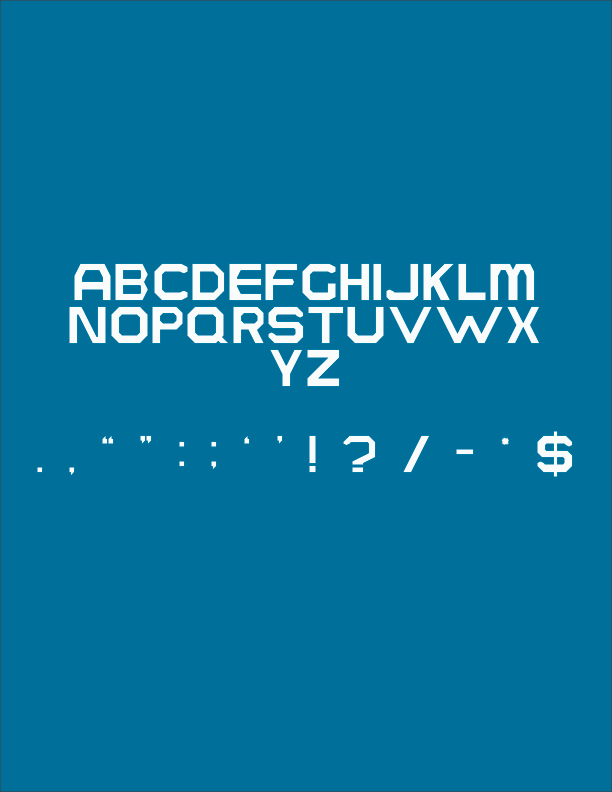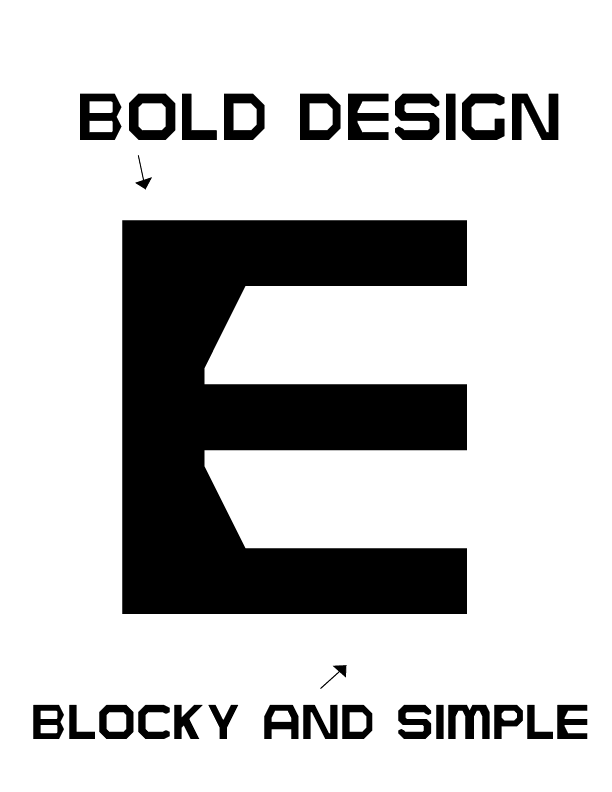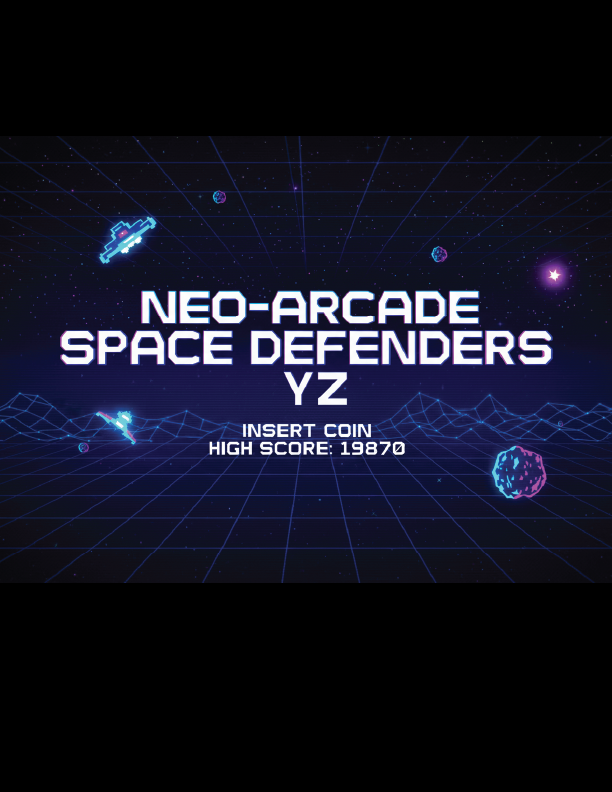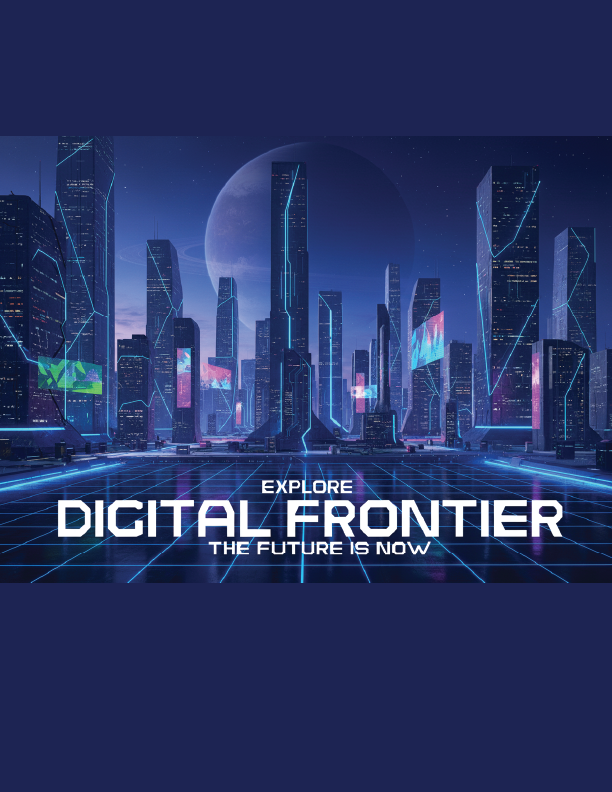
• This blocky typeface features strong, geometric letterforms built from bold, structured shapes. Its solid construction gives it a confident and modern presence, while the clean lines ensure high legibility at large and small sizes. The uniform weight and squared edges create a sense of stability, strength, and clarity.
Ideal for headlines, branding, sports graphics, signage, and digital projects, this typeface delivers impact without sacrificing readability. Its straightforward, no-nonsense design makes it both visually striking and highly functional.